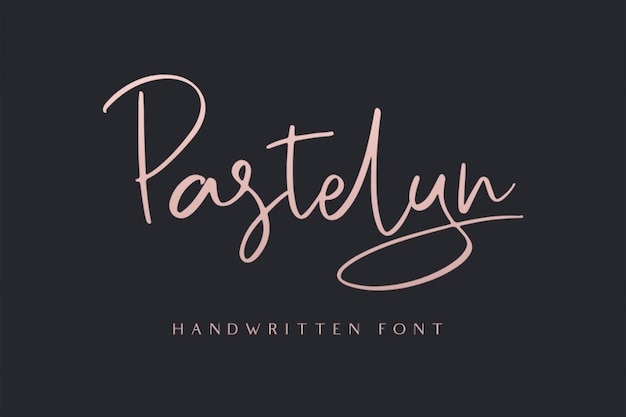
Pastelyn Font
It is a classic font that seamlessly merges the elegance of calligraphy with the timeless appeal of handwritten script. It's a versatile choice for those seeking a touch of sophistication and a dash of personal flair. Whether you're crafting invitations, stationery, or elegant signage, "Pastelyn" adds a timeless and classy touch to your projects.